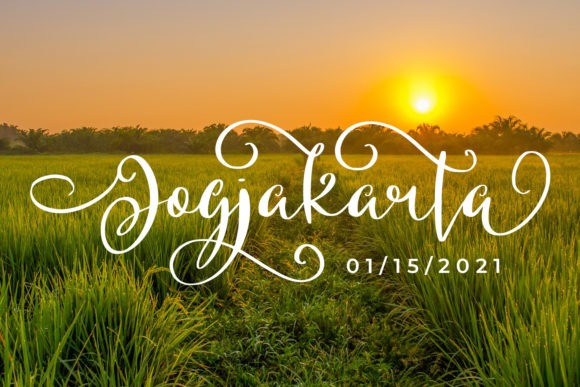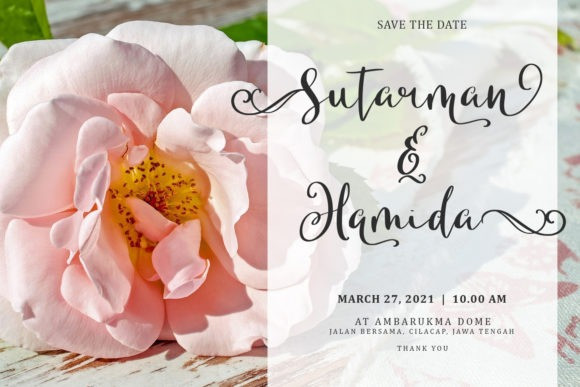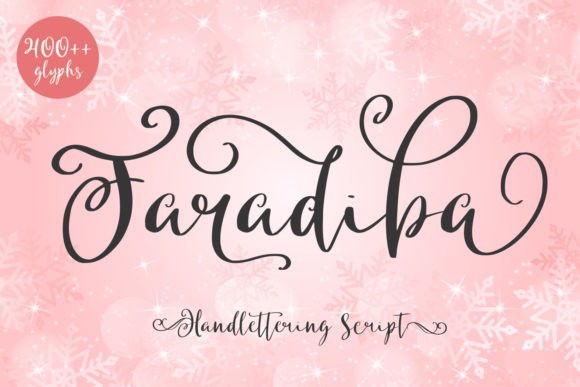
Faradiba Font
Faradiba Script Font is a romantic and sophisticated script font. It looks ravishing on a variety of formal and informal or casual designs. This font is PUA encoded which means you can access all of the glyphs and swashes with ease!